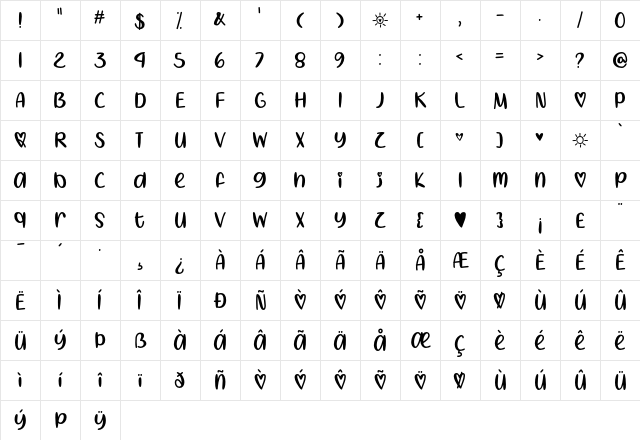
I Heart Summer Regular
Design Context for I Heart Summer Typeface
I Heart Summer is a composed and adaptable typeface that performs quietly and consistently across a wide range of design contexts.